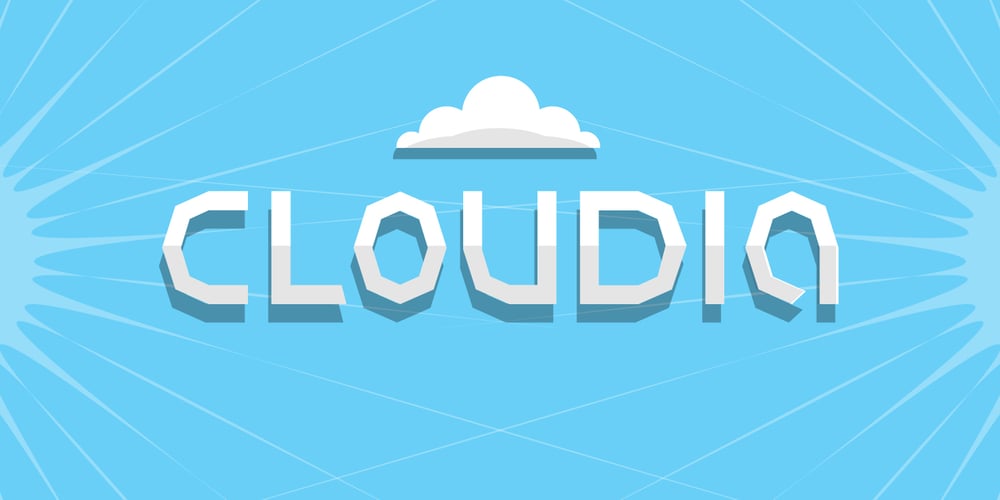
Cloudia Font Family was designed by published by PHDesign. Cloudia contains 1 styles and family package options. Cloudia is a versatile, modern font with an attention-grabbing angularity. It has a thoroughly mechanical, science fiction look; but with slightly unconventional vowel shapes to give it a dynamic edge. Its precisely cut letters need to be displayed as large as possible for maximum impact. Perfect for book titles, magazines, band logos, movie titles, stencils and video games.